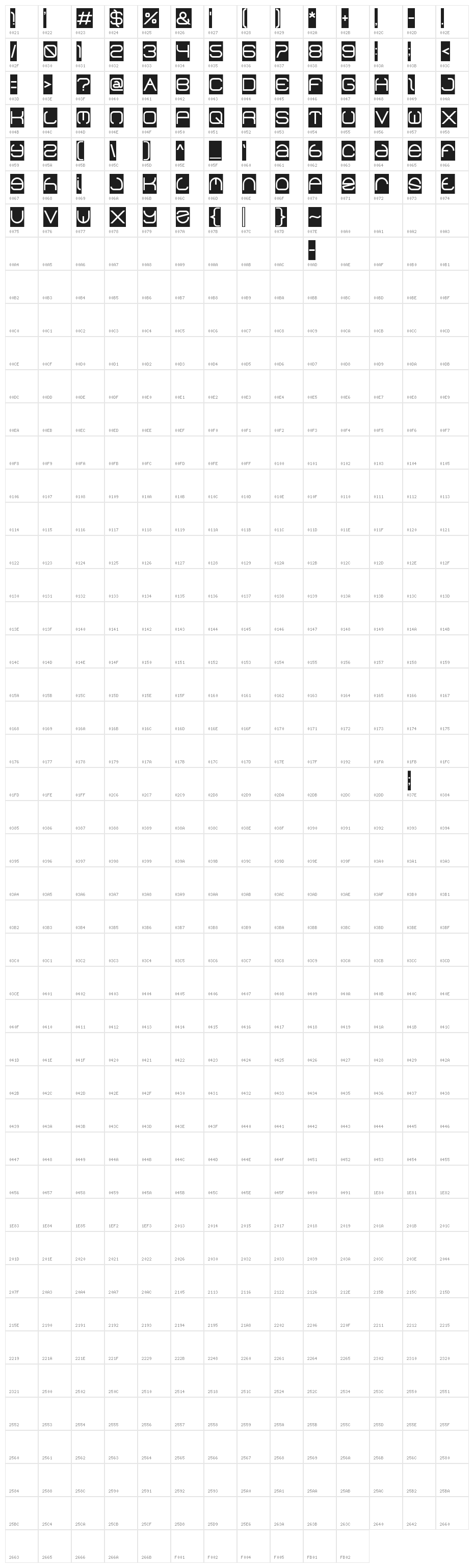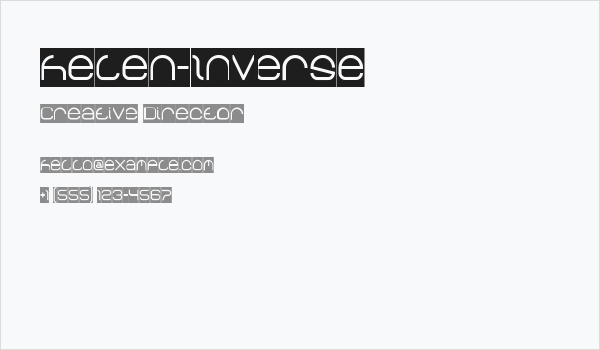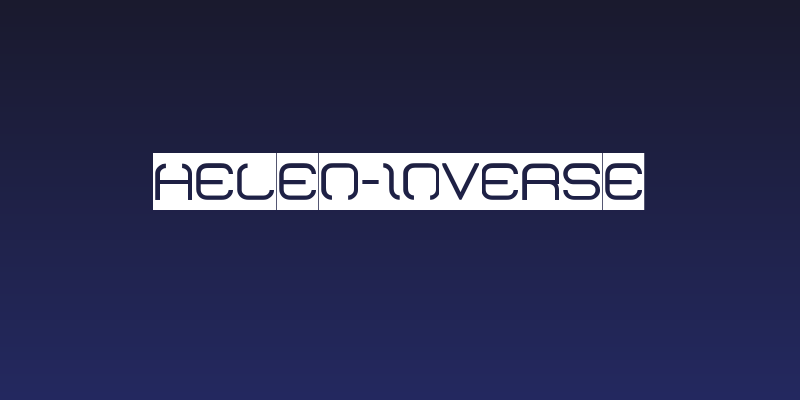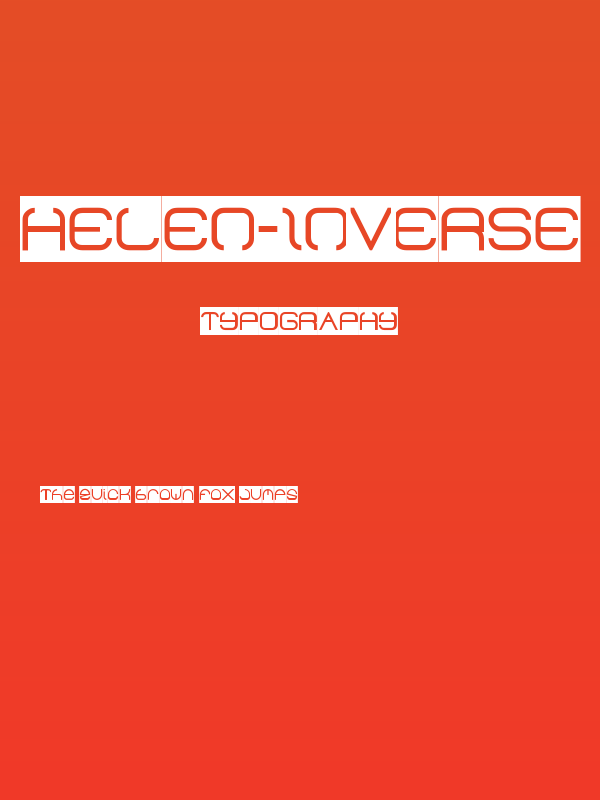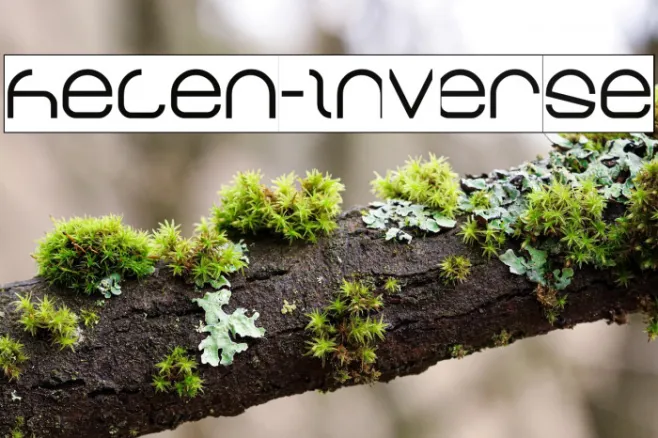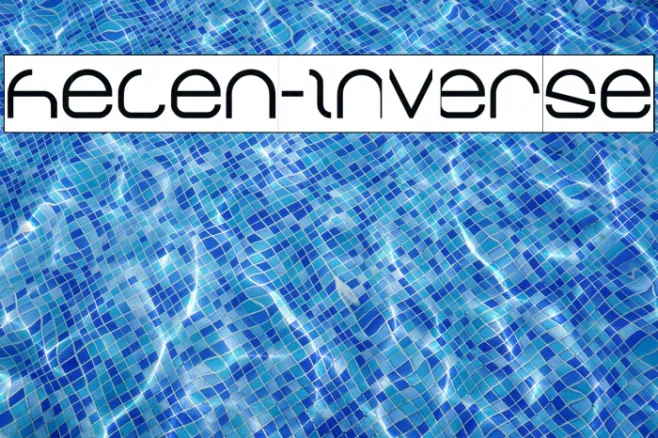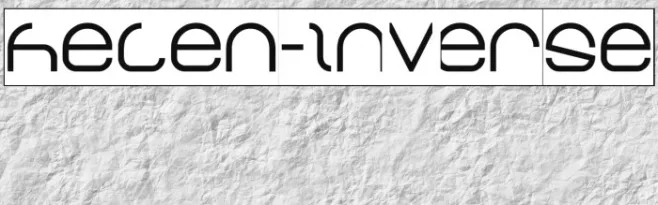
helen-Inverse Font
helen-Inverse Description
This font exhibits a modern and futuristic style with its geometric and symmetrical design. The characters are crafted with a consistent stroke width, creating a sleek and streamlined appearance. The uppercase and lowercase letters maintain a uniform height, contributing to a cohesive look. The numerals and special characters are designed to match the overall aesthetic, ensuring visual harmony across all elements. The font's clean lines and minimalistic approach make it highly legible, while its unique character shapes add a distinctive flair. This typeface is ideal for projects that require a contemporary and innovative touch.
| Overall Style | Futuristic and sleek |
| Use Case | Headlines, Logos, Digital interfaces |
| Proposed Projects | Ideal for tech branding, modern advertising, digital interfaces, and innovative product packaging. |